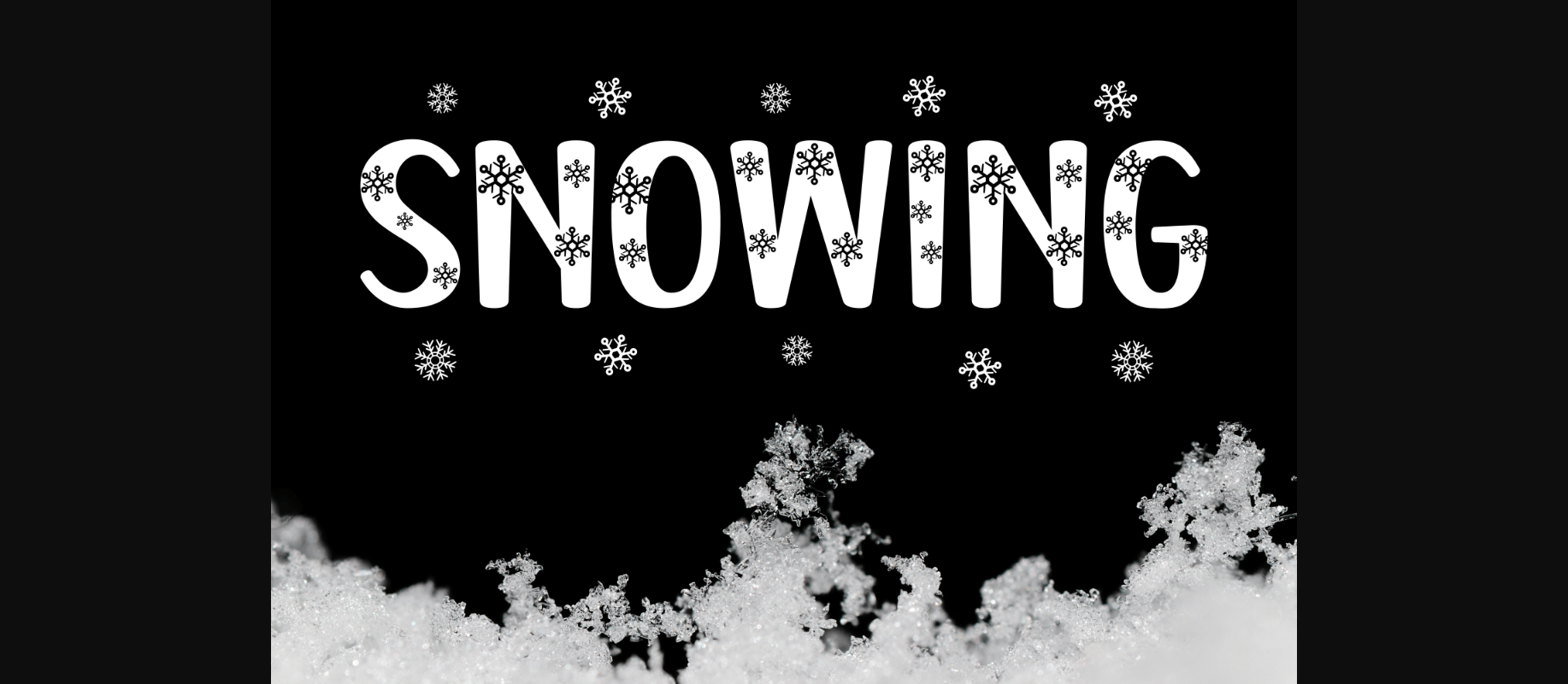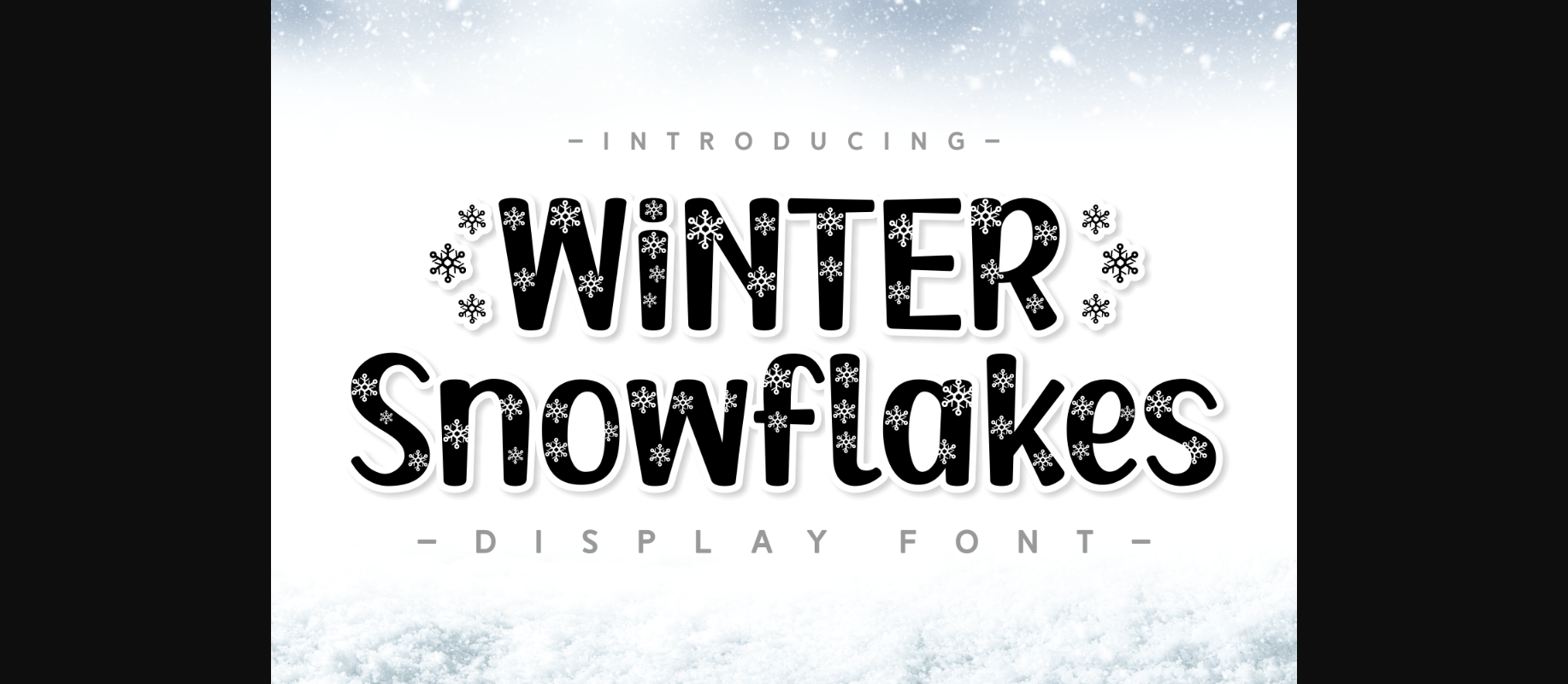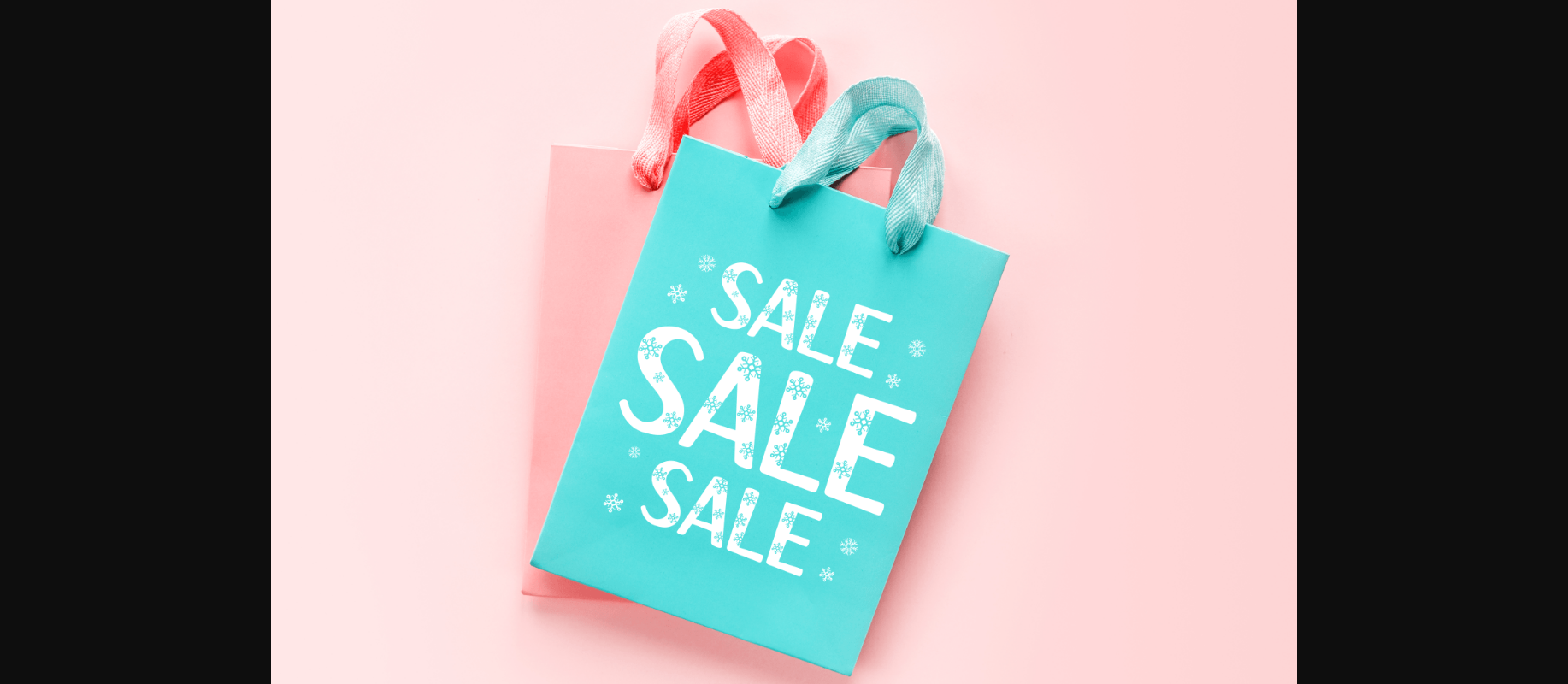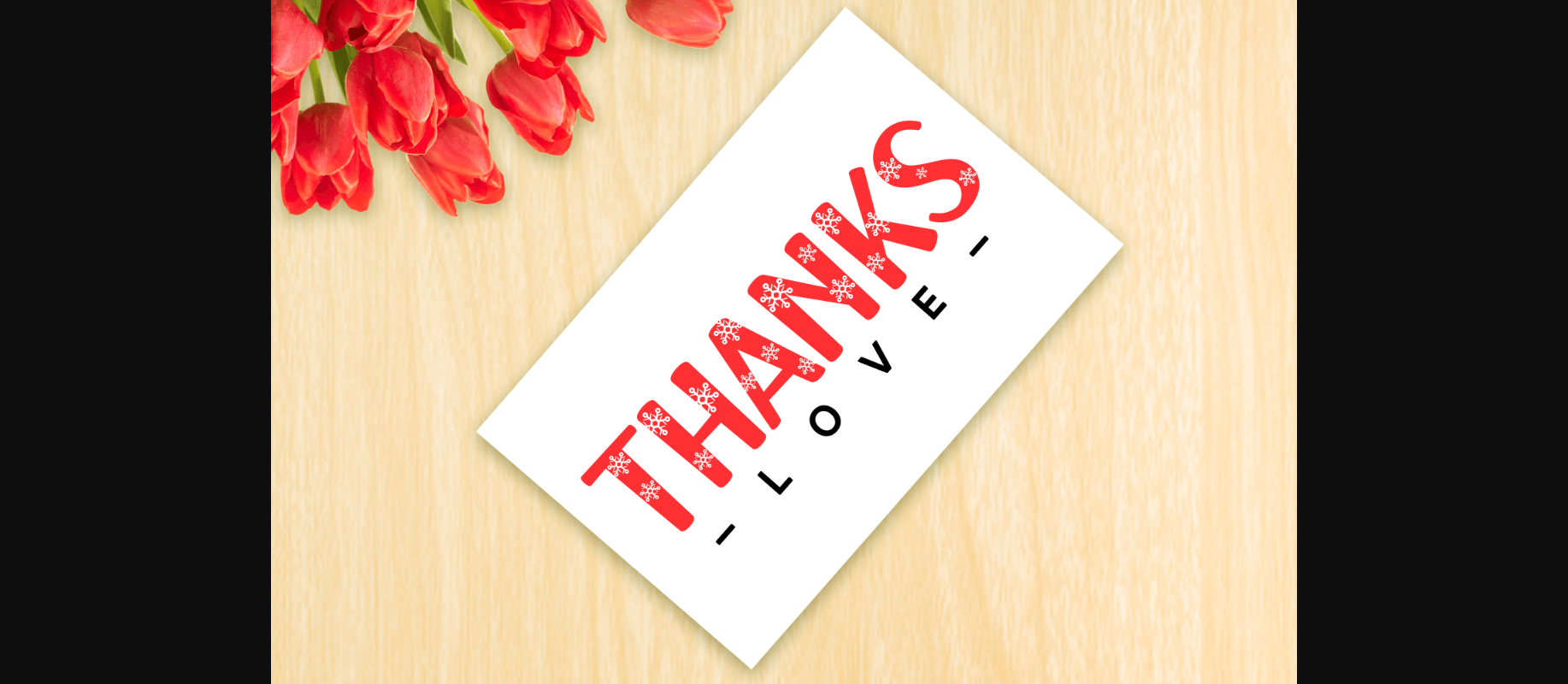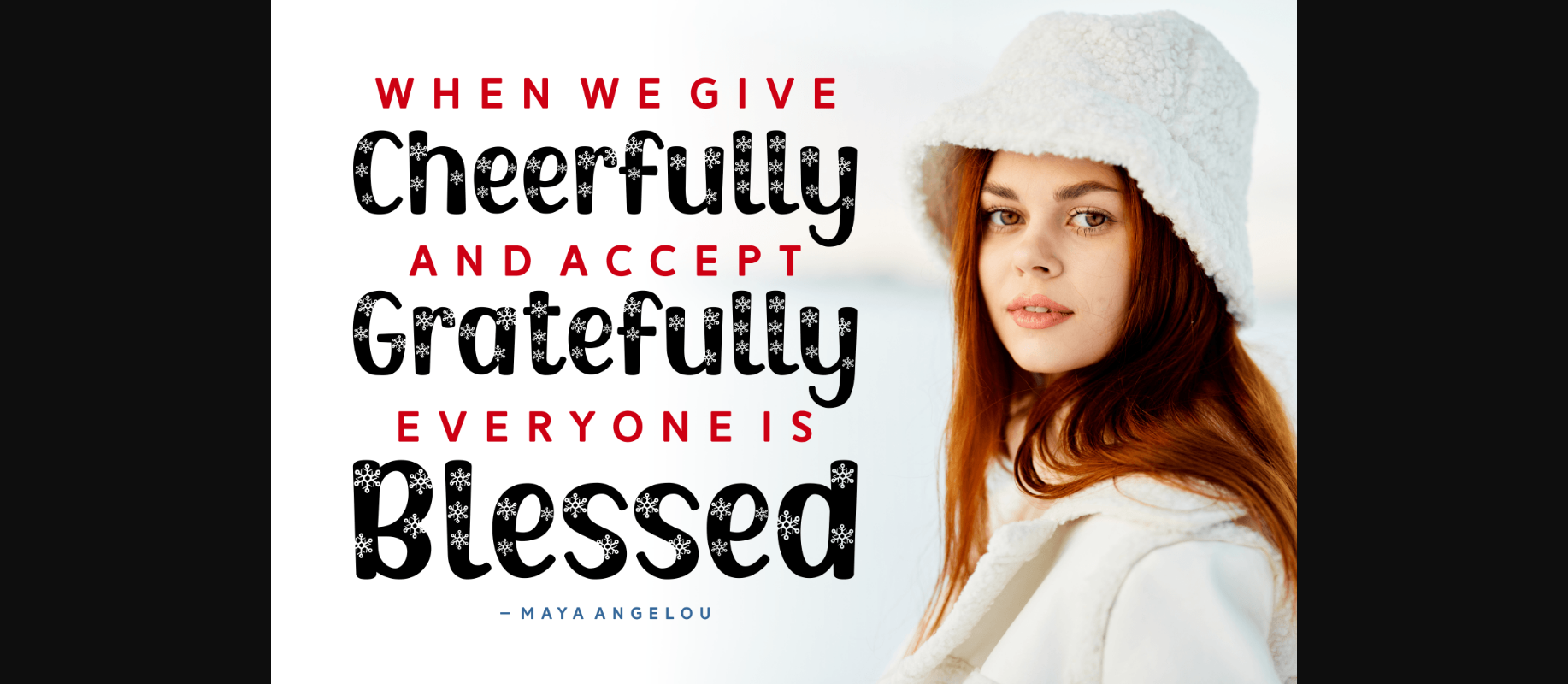
About Winter Snowflakes Font
Winter Snowflakes is a sweet decorative typeface with a winter theme. It can be a wonderful addition to your holiday project or winter-themed endeavor. Snowflakes are added to each character, bringing a festive atmosphere to any design you use it on.